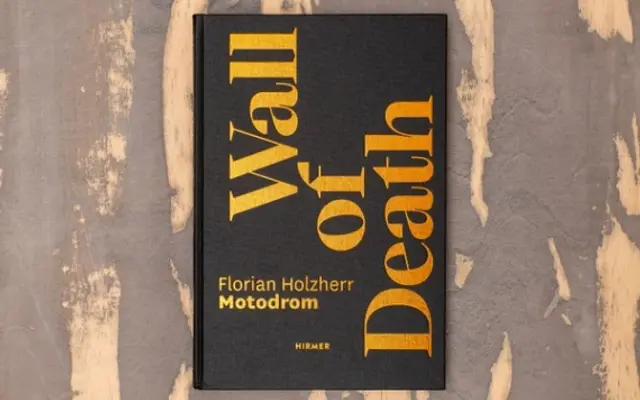
Bart
b•v-h type · André Baldinger & Toan Vu-Huu · 2022
A three-optical-size serif family by André Baldinger and Toan Vu-Huu, conceived for the Opera of Strasbourg and blending Oldstyle, Transitional and Neoclassical influences.
Designed in 2019 and released in 2022, Bart grew from a visual identity pitch for the Opera of Strasbourg and spans Text, Normal and Display subfamilies, each in four weights with italics. Strong stroke contrast is paired with right-angled cut drops, square dots and wire elements to give the family a contemporary edge over its classical structure. OpenType features include four figure sets, small capitals, stylistic alternates and an extensive range of circled and framed numerals.
Bart combines Oldstyle, Transitional and Neoclassical serif elements, with strong stroke contrast and refined detail. The foundry explicitly describes this blend across three optical contrast variants.